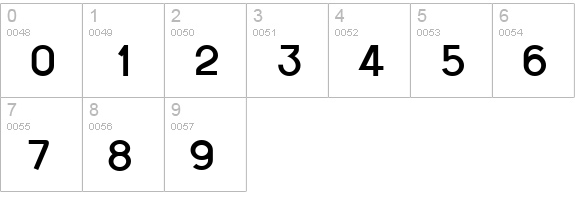
AndrewAndreasXBold Font Details
AndrewAndreasXBold is a modern and stylish font that exudes confidence and sophistication. Its bold and striking design makes it perfect for creating eye-catching headlines, titles, and branding materials. This versatile font is suitable for a wide range of design projects, from posters and advertisements to logos and packaging. What sets AndrewAndreasXBold apart is its unique combination of sharp edges and smooth curves, giving it a contemporary and edgy look. Whether you're designing a sleek website or a trendy fashion magazine, this font is sure to make a statement. Best of all, AndrewAndreasXBold is available for free download at FontsMarket.com. So go ahead and elevate your designs with this stunning font today!